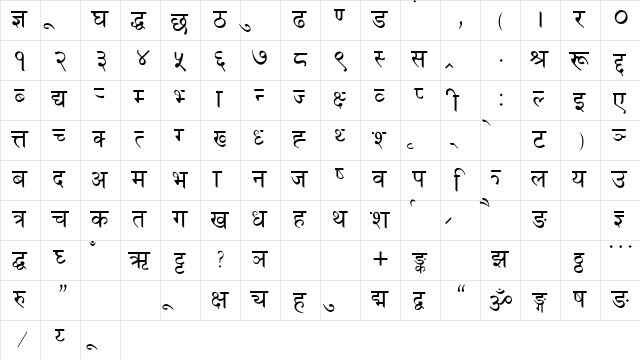
PCS NEPALI Normal
Design Context for PCS NEPALI Typeface
PCS NEPALI is a composed and adaptable typeface that performs quietly and consistently across a wide range of design contexts.
Pro Tip: Pair PCS NEPALI with a font of contrasting weight or personality to build a more expressive typographic hierarchy.